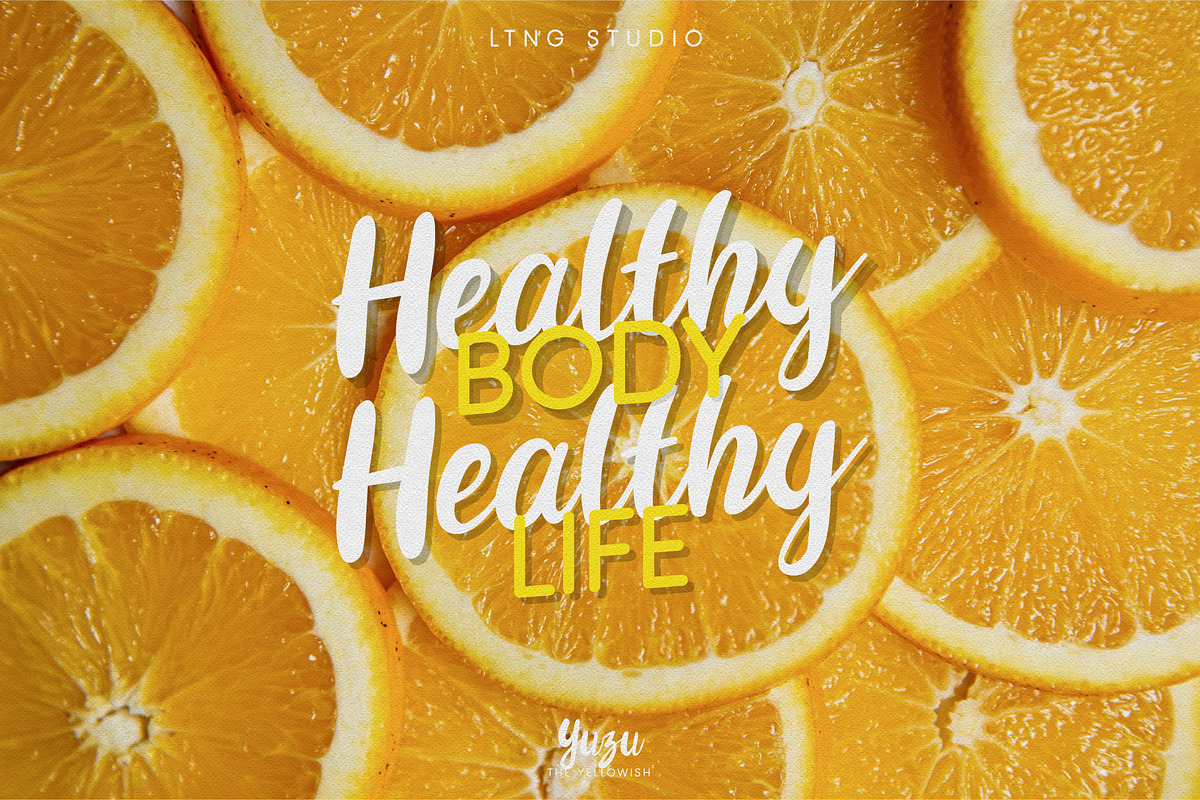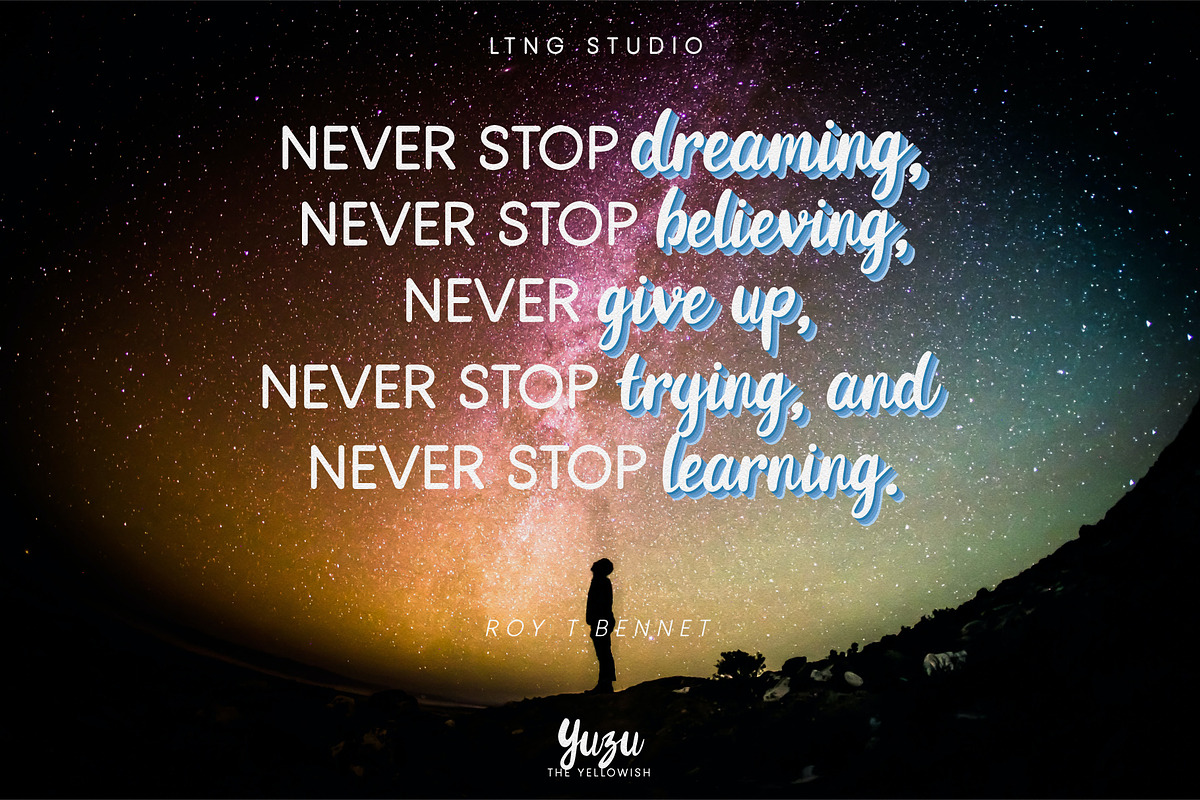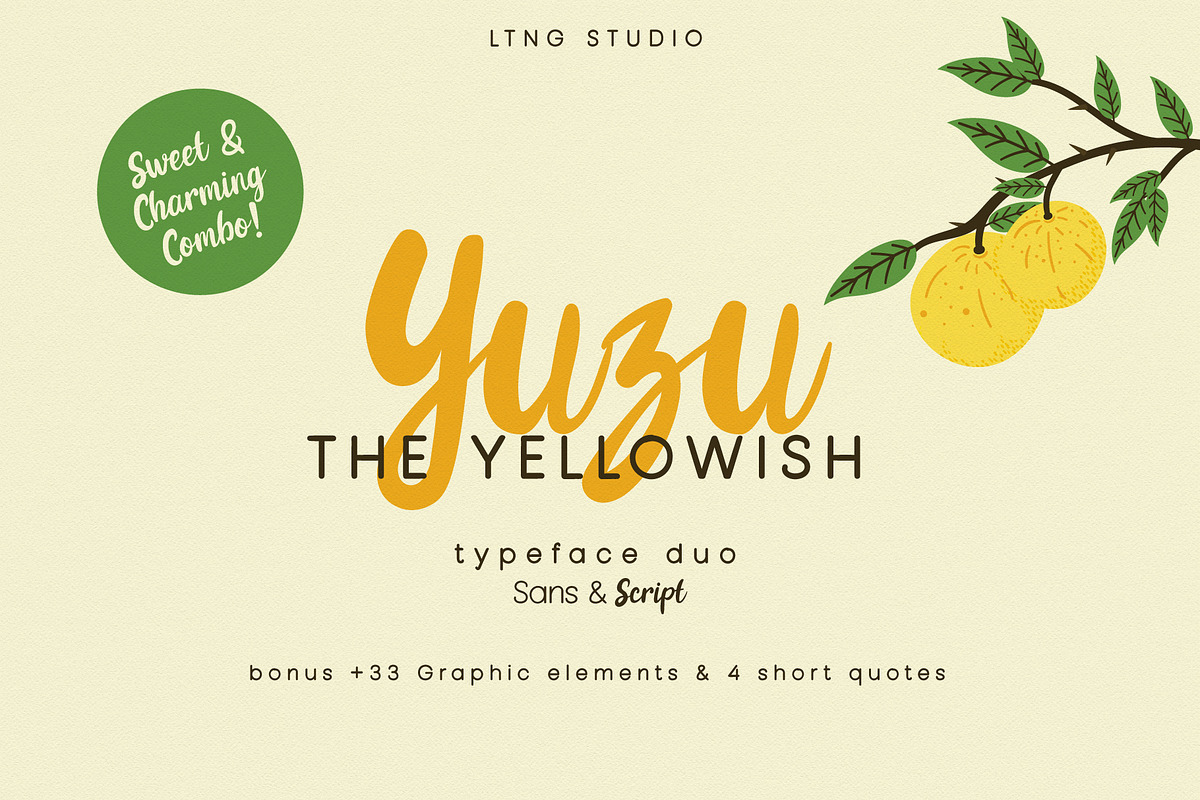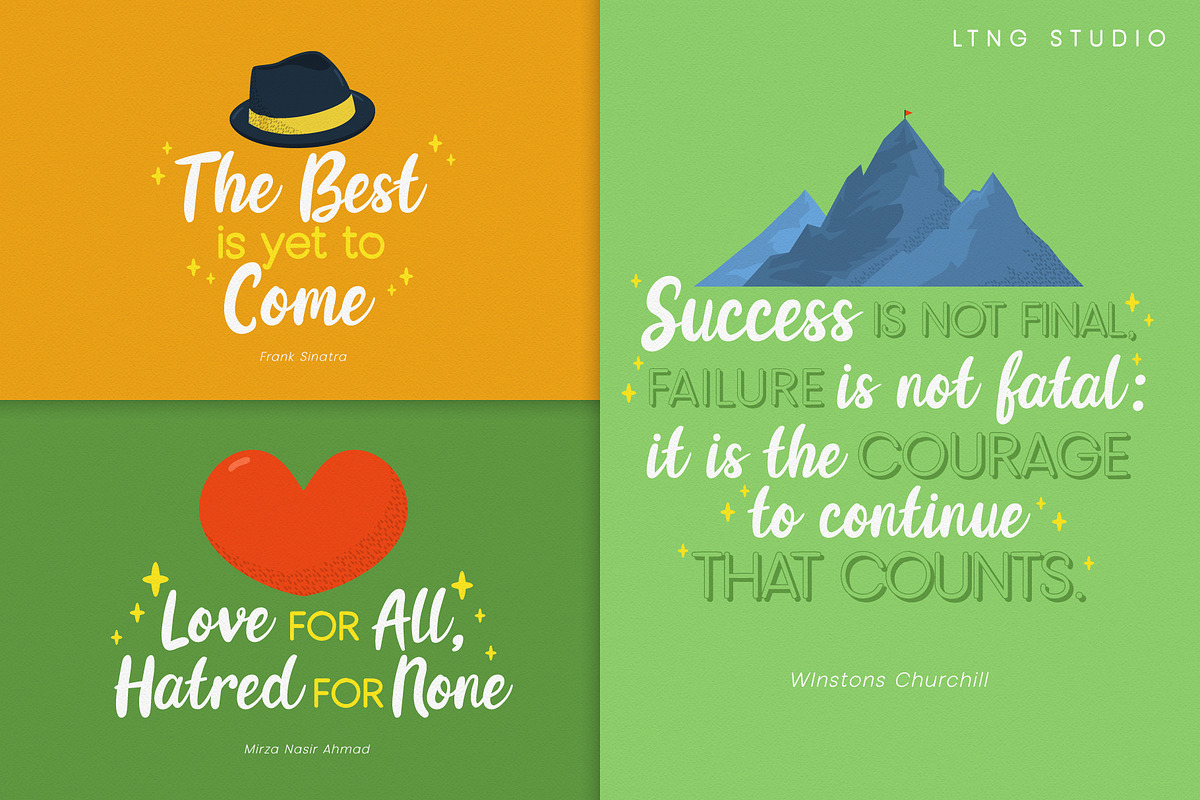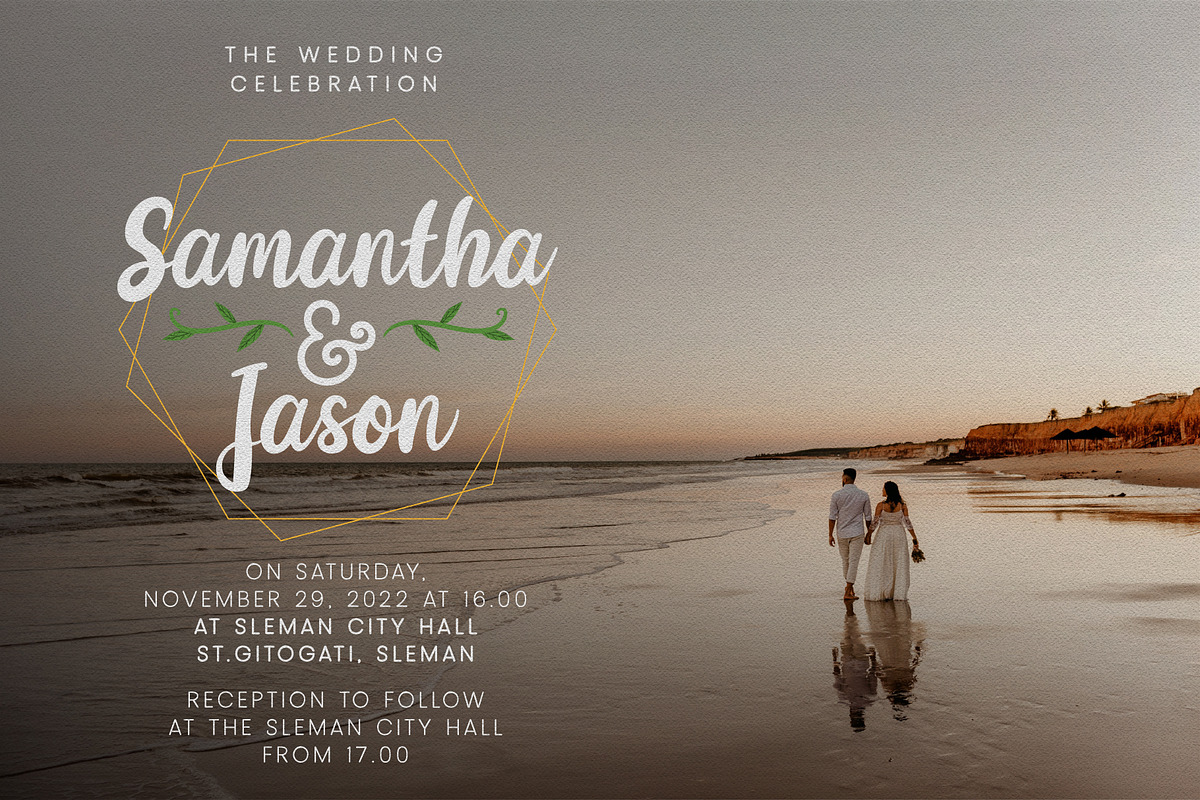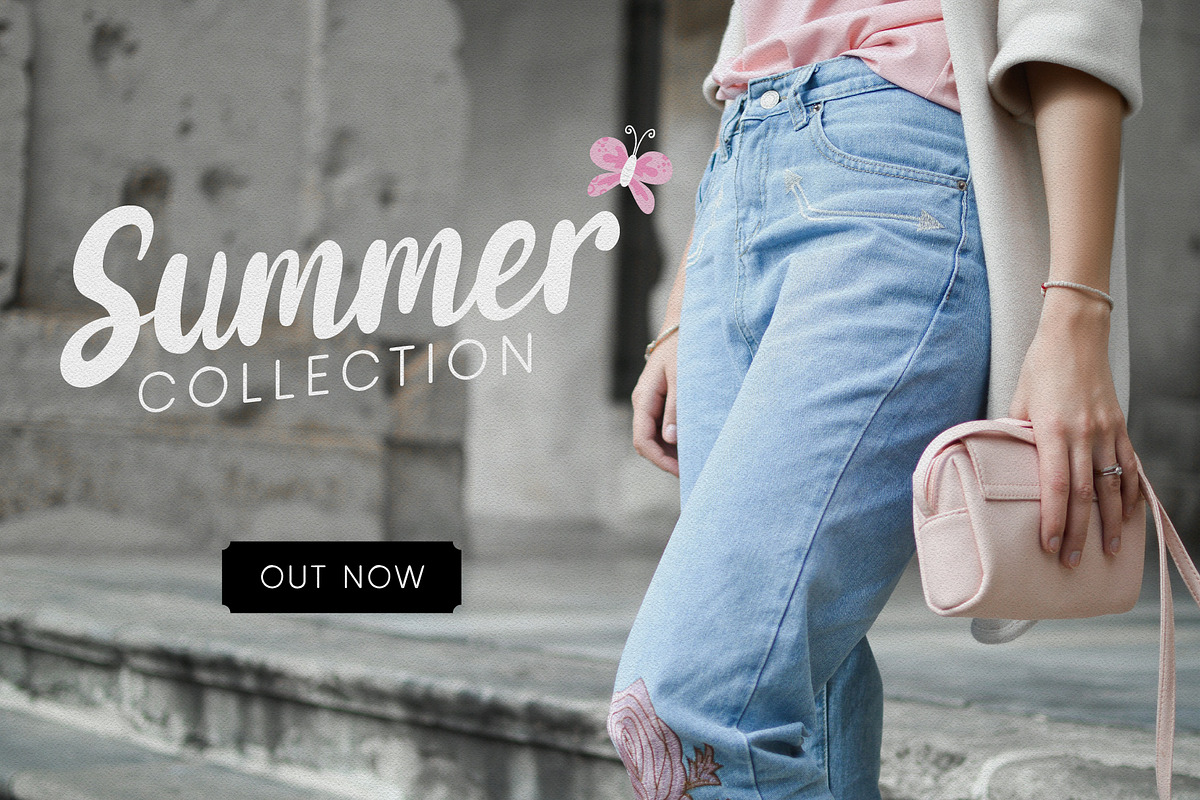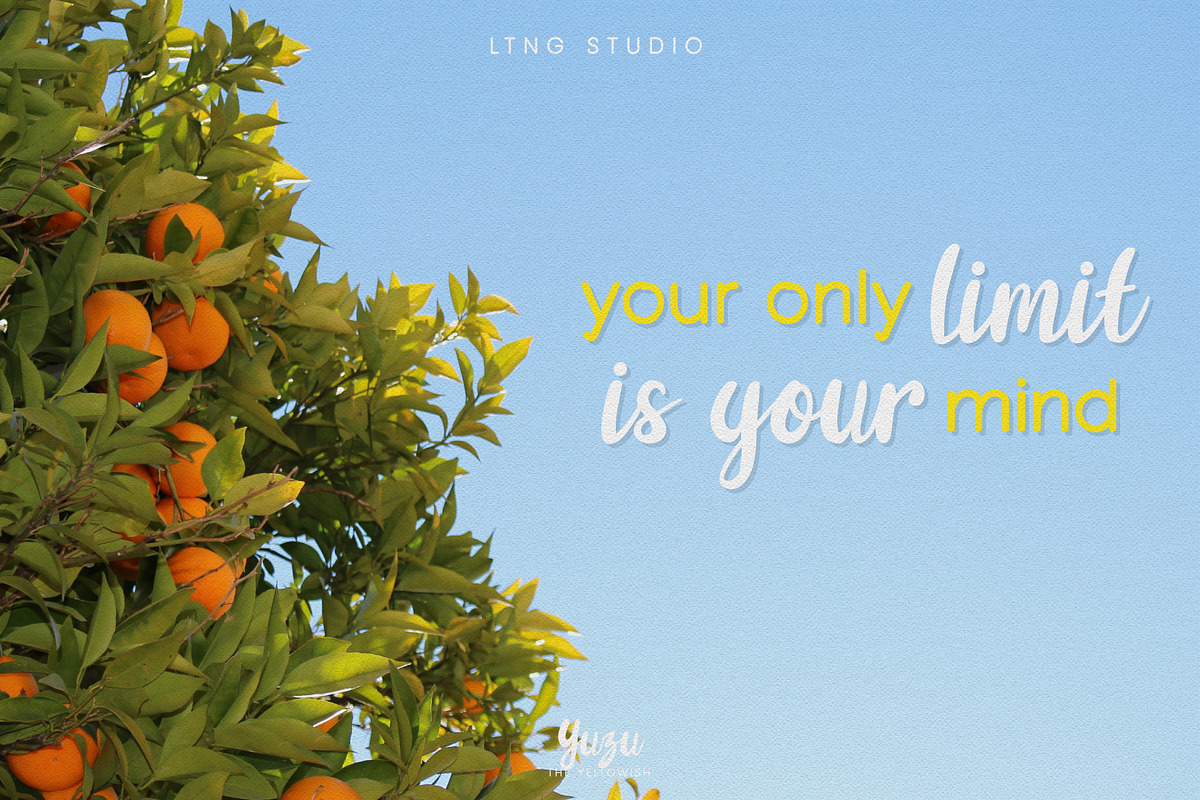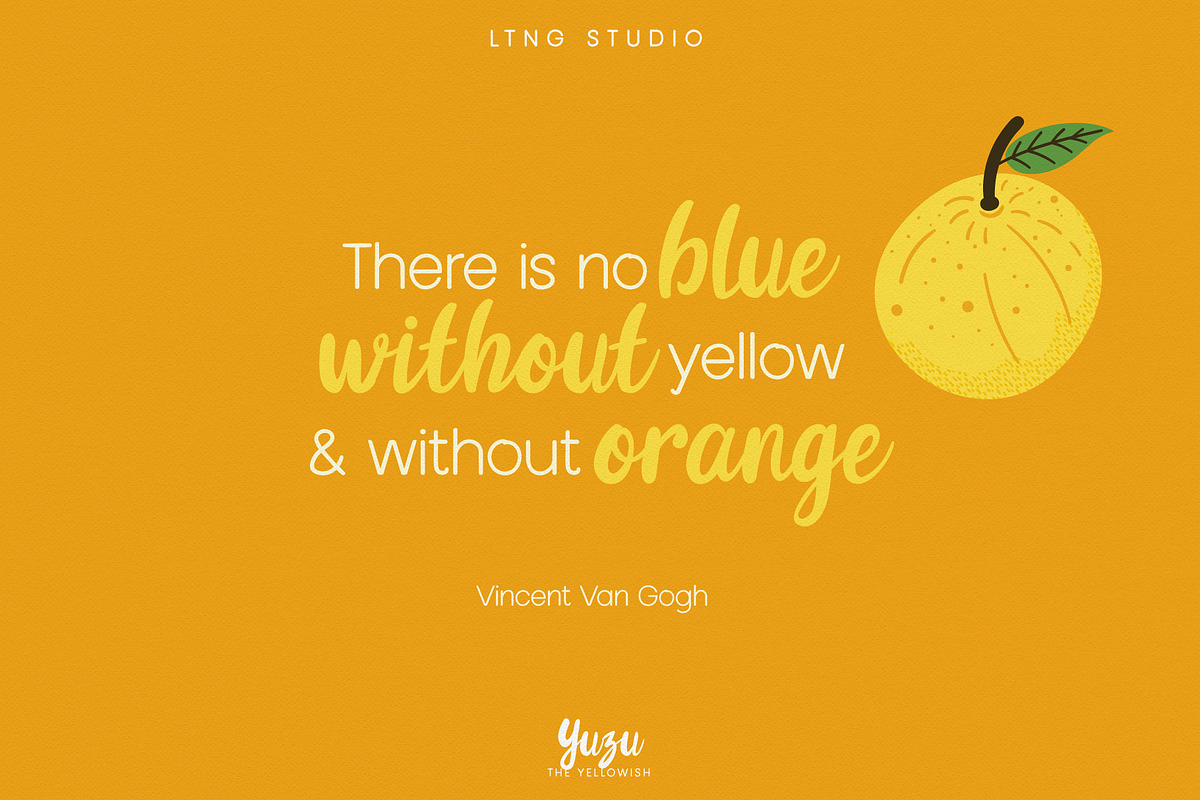
Yuzu The Yellowish Font Duo
Introducing Yuzu The Yellowish A charming and sweet font duo script and sans serif font. Perfect for casual type in greeting cards, illustrations, quotes, branding, book cover, children’s book, packaging, wedding design and so much more. The duo consists of a family of font duo script and handwriting sans.
Yuzu The Yellowish Sans Reguler
Yuzu The Yellowish Sans Italic
Yuzu The Yellowish Sans Bold
Yuzu The Yellowish Sans Black
Yuzu The Yellowish Sans Bold Italic
Yuzu The Yellowish Sans Shading
Yuzu The Yellowish Script Reguler
Yuzu The Yellowish Script Italic
Yuzu The Yellowish Sans Bold
Yuzu The Yellowish Sans Thin